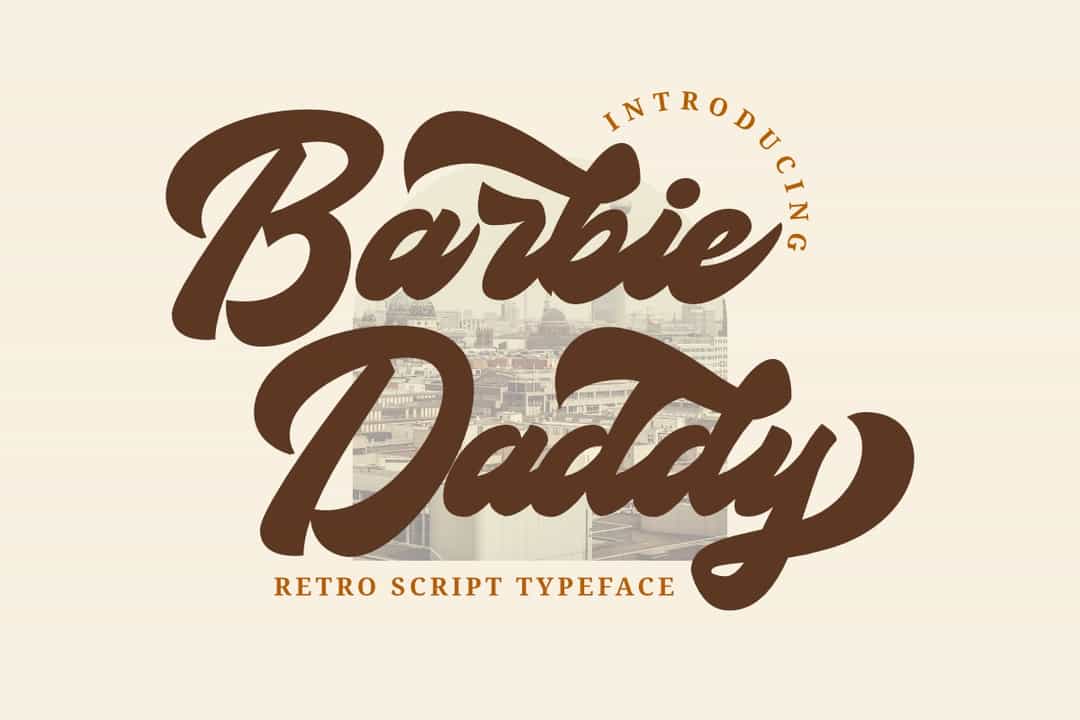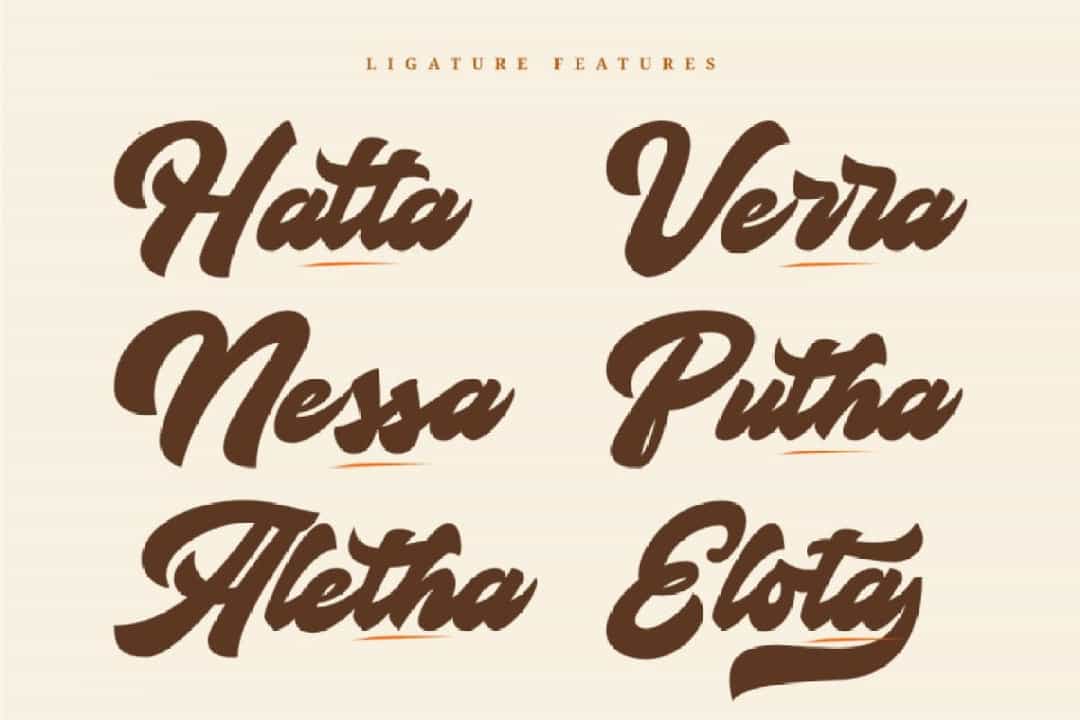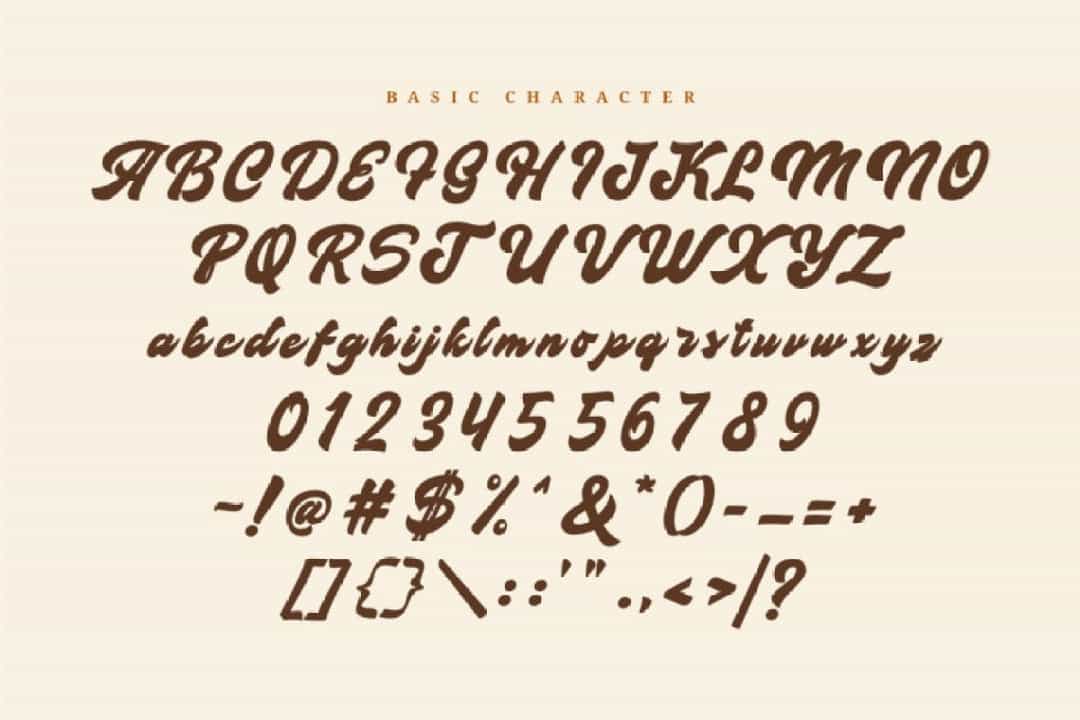
Barbie Daddy is an old-fashioned script font with strong retro feminine style influences that makes for an eye-catching statement. Perfect for crafting purposes using digital technology such as circuits, T-shirts and Mugs as well as invitations, greeting cards wall hangings and headlines; as well as song titles album covers music stickers SVG quotations as well as exploring endless concepts this font offers up.